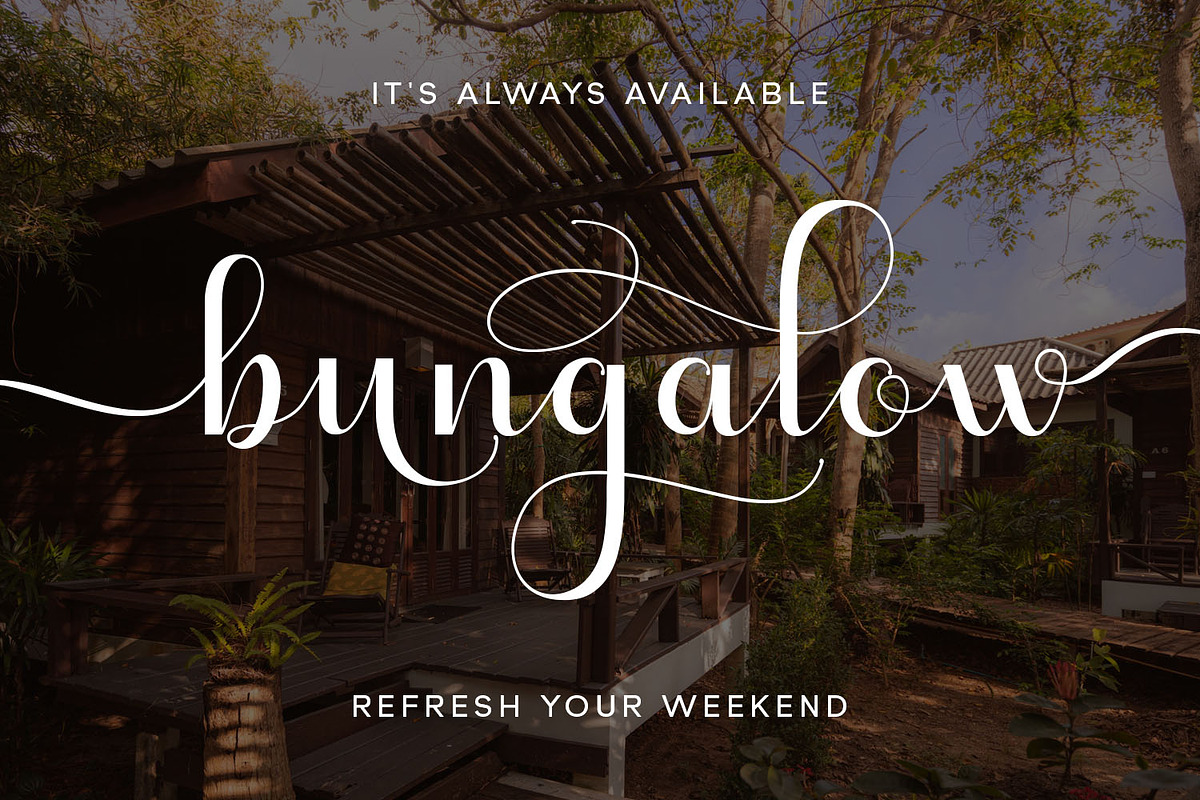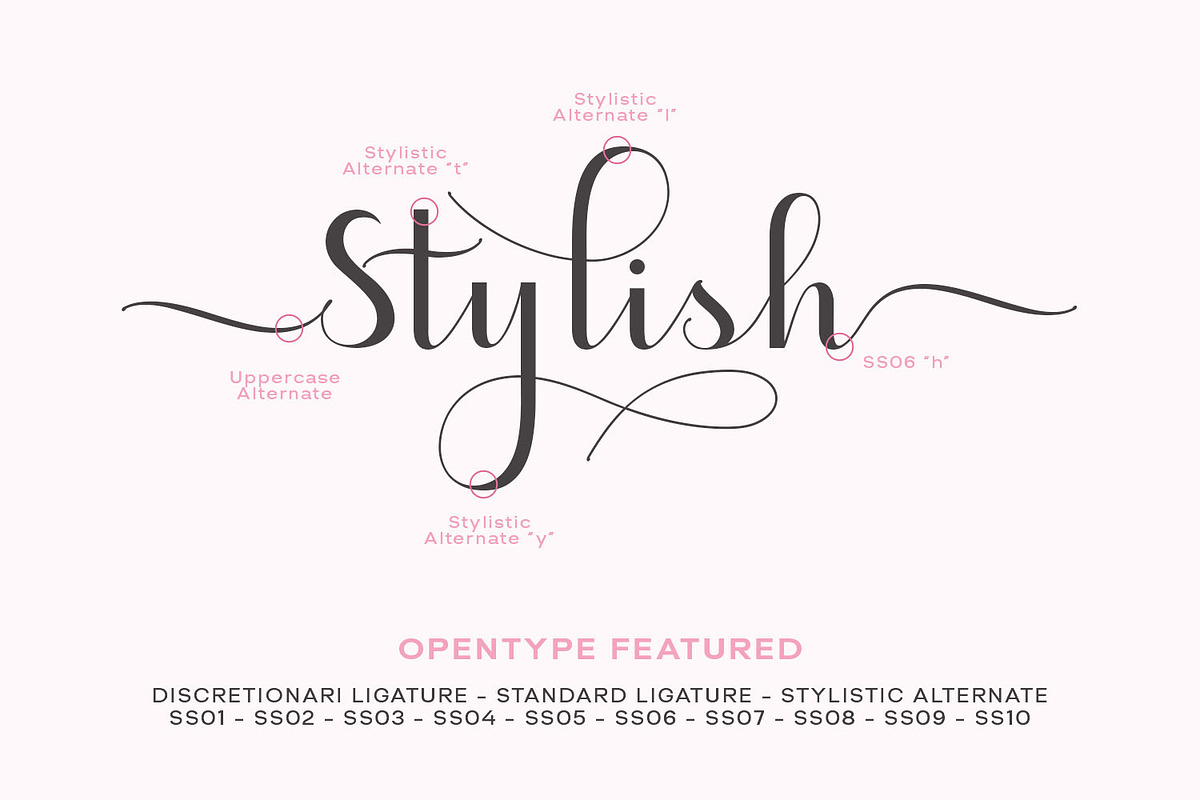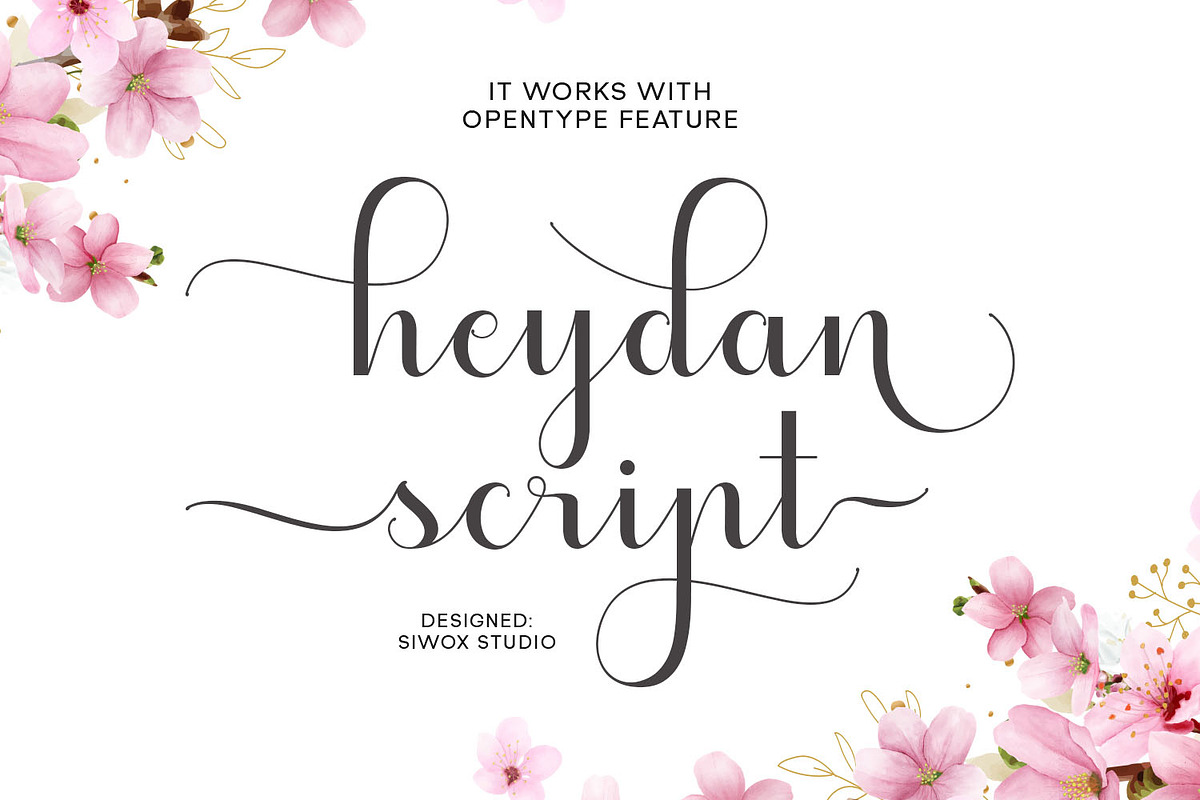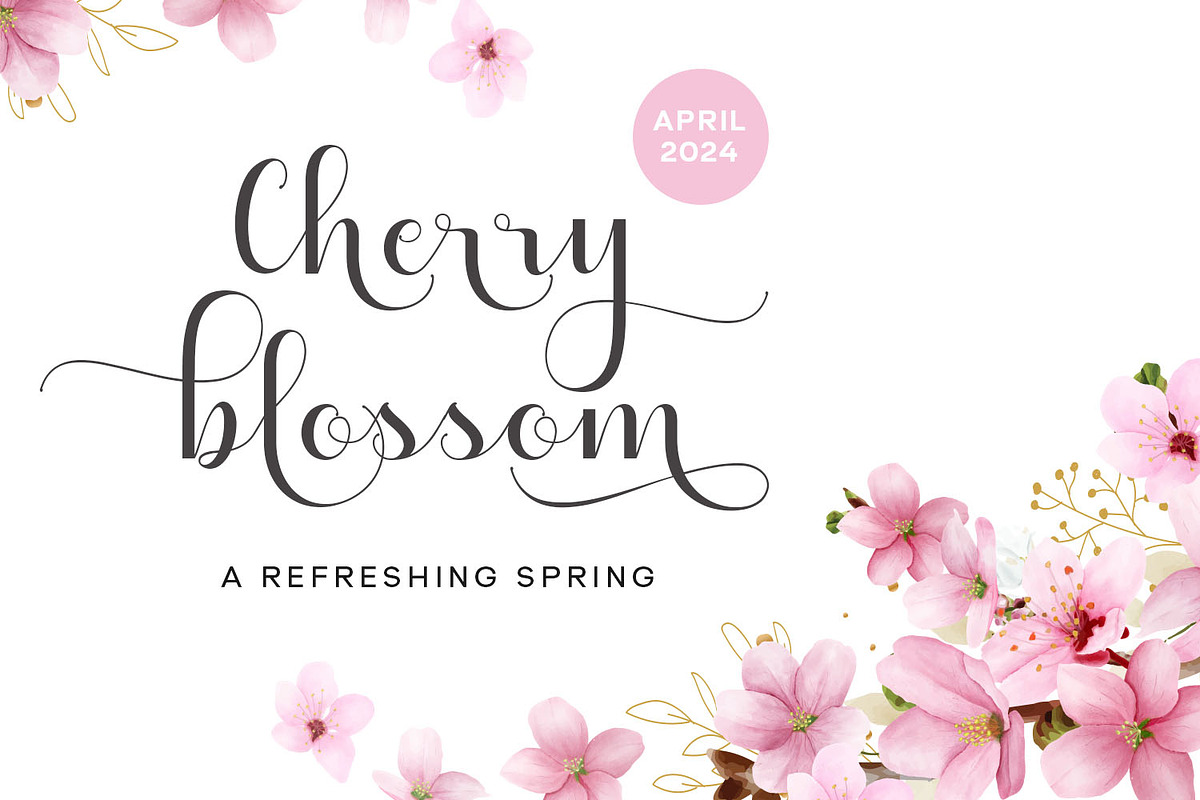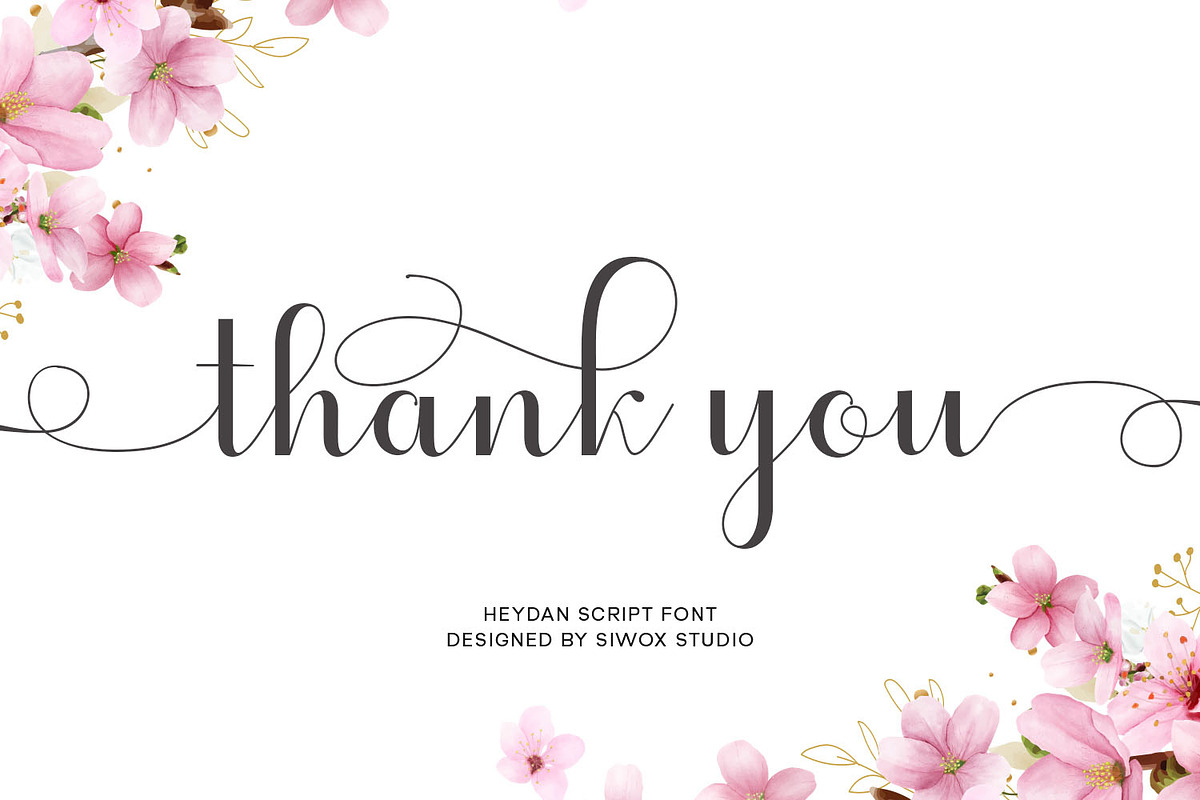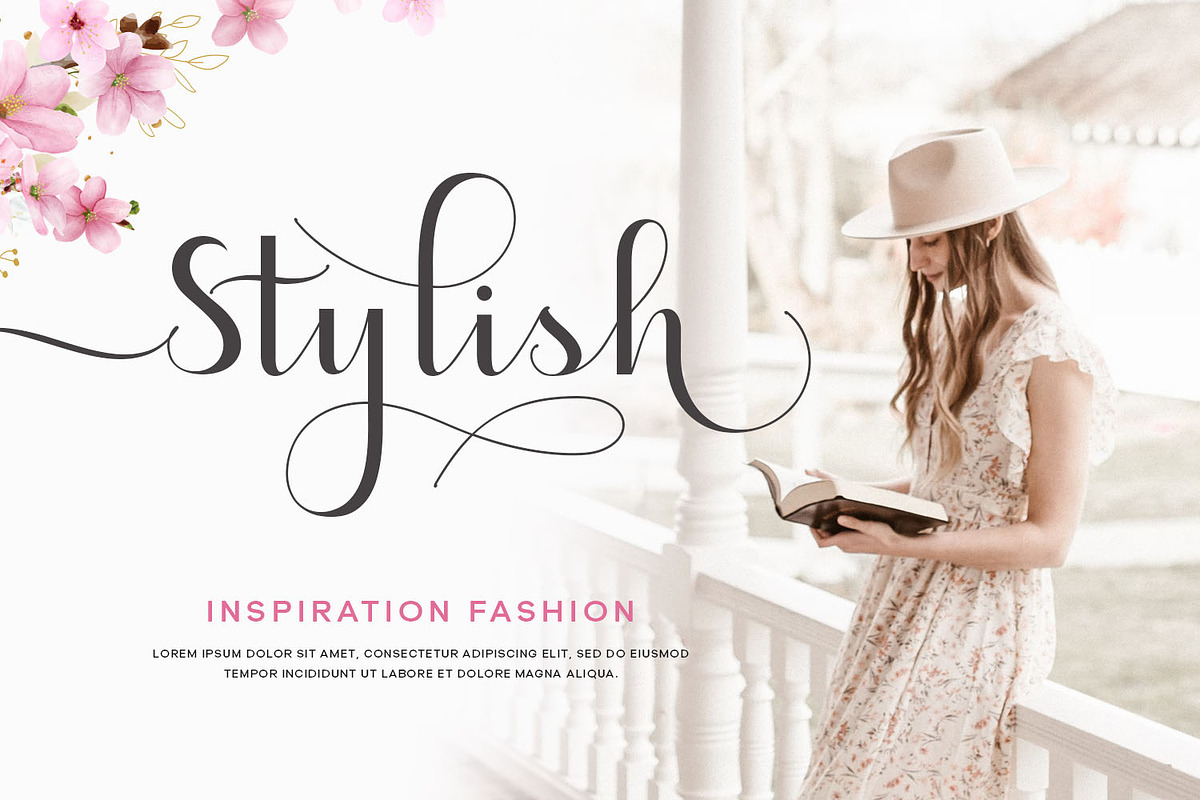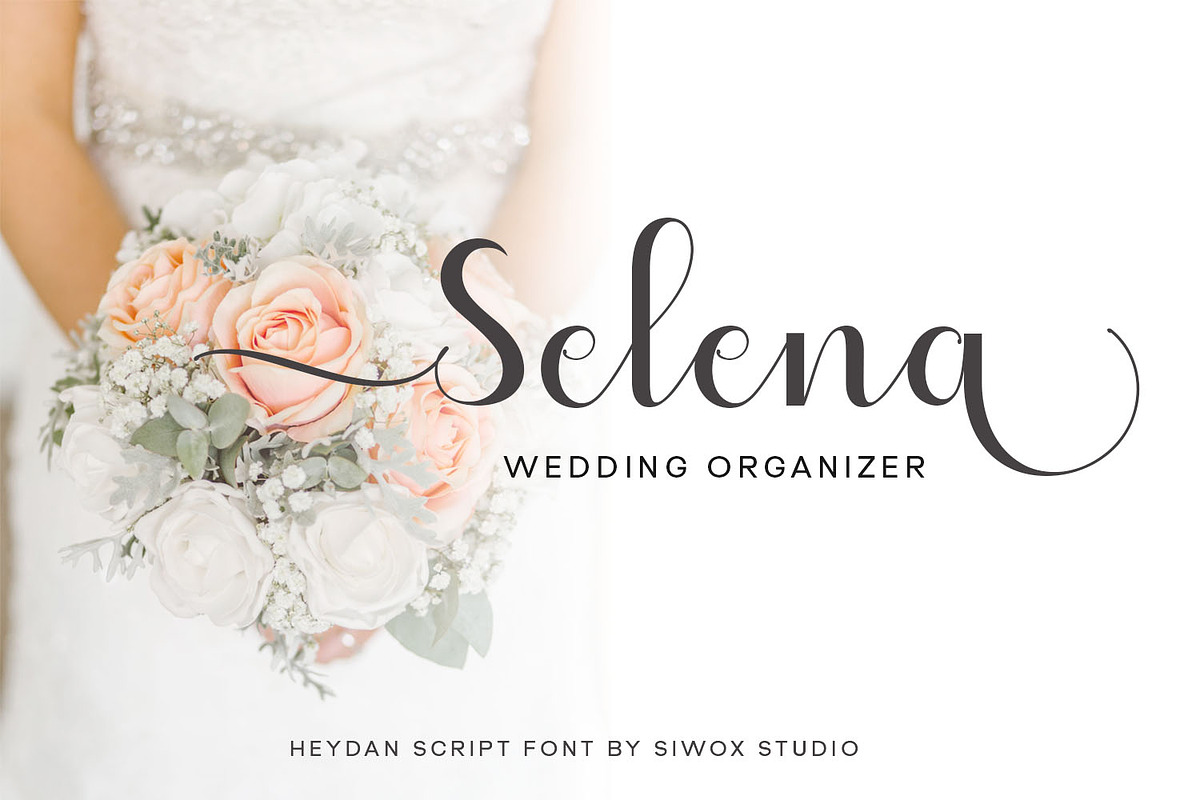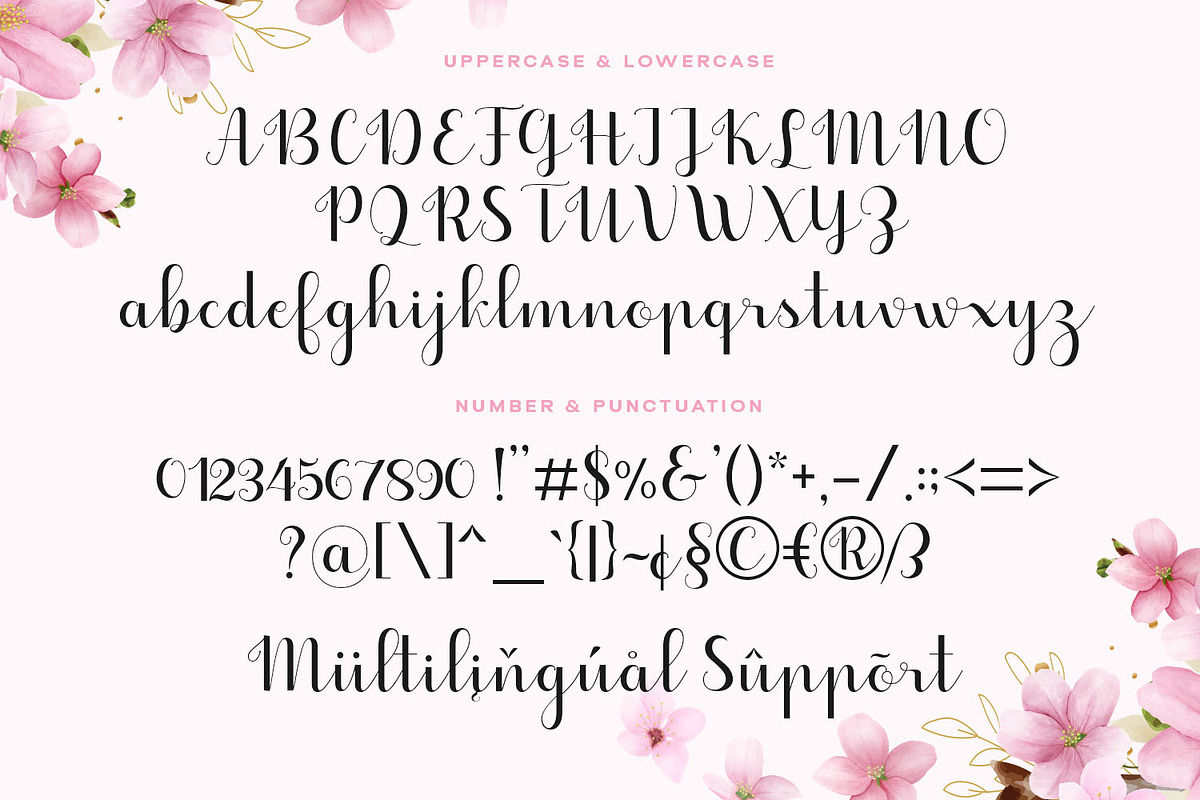
Heydan Script - a stylish fonts
Heydan Script is a romantic & modern upright font created by Siwox Studios
This beautiful smooth font will give your project a fresh touch. It comes with 264 standard glyphs and 408 extra alternate glyphs, packed with swashes.
The Heydan Script font is extremely well suited for wedding and birthday invites, t-shirts & apparel, signs and many more projects that require a personal touch.